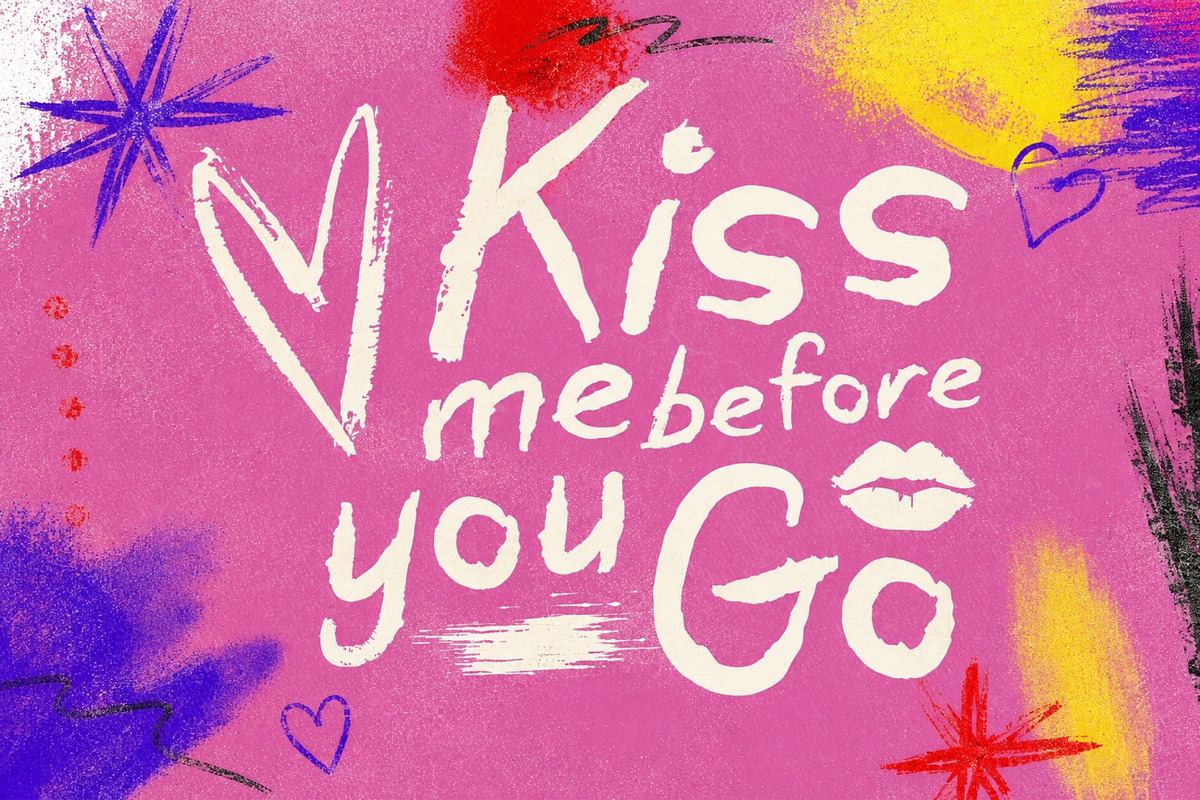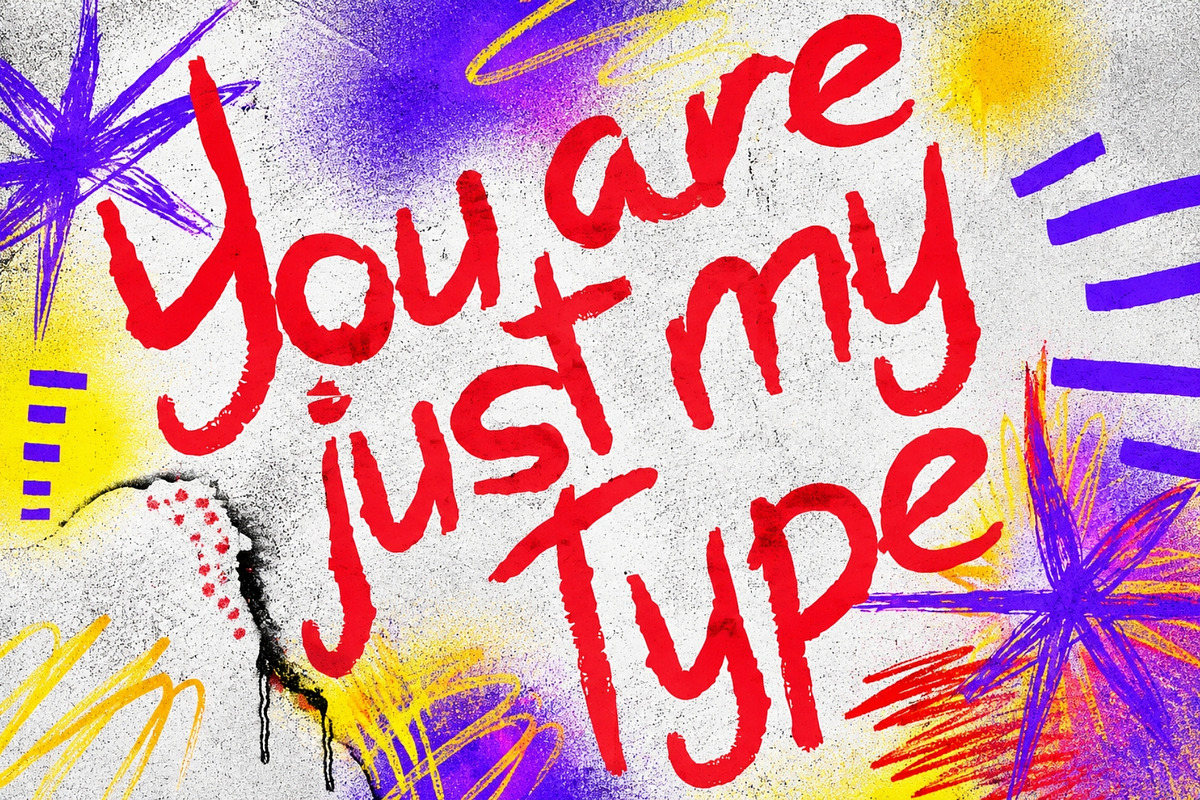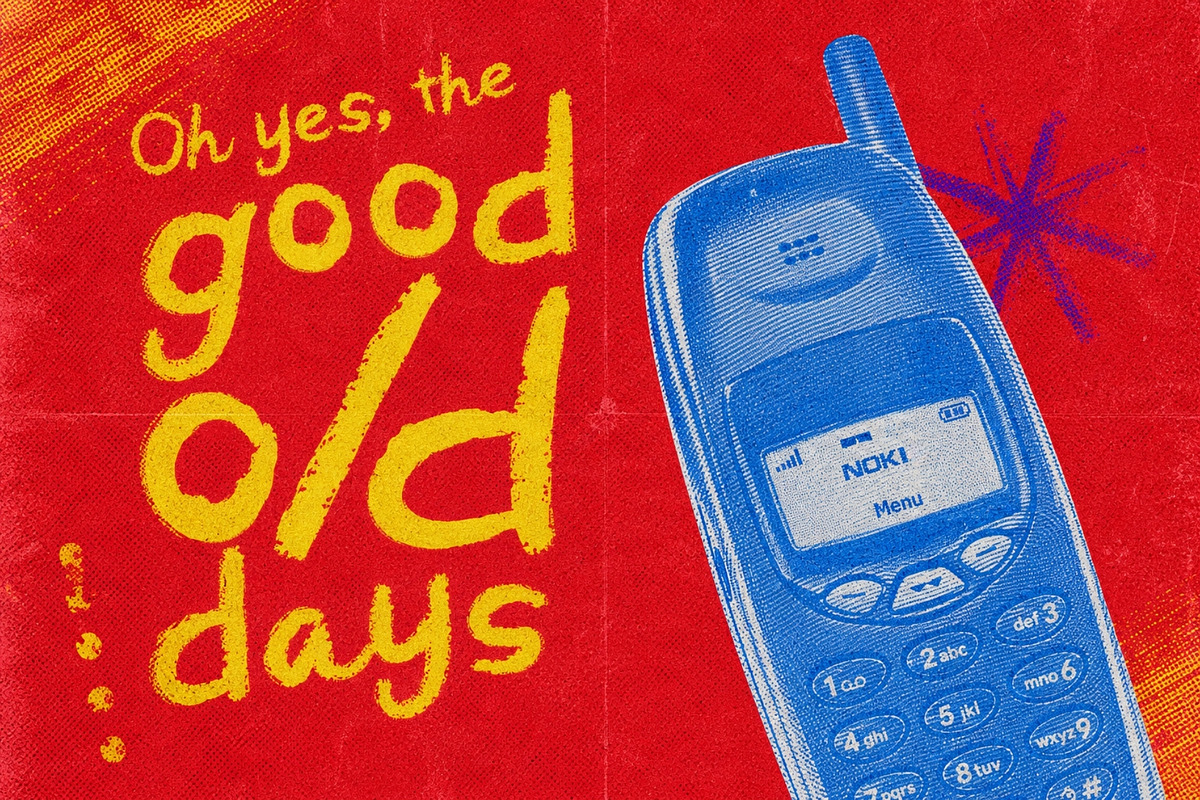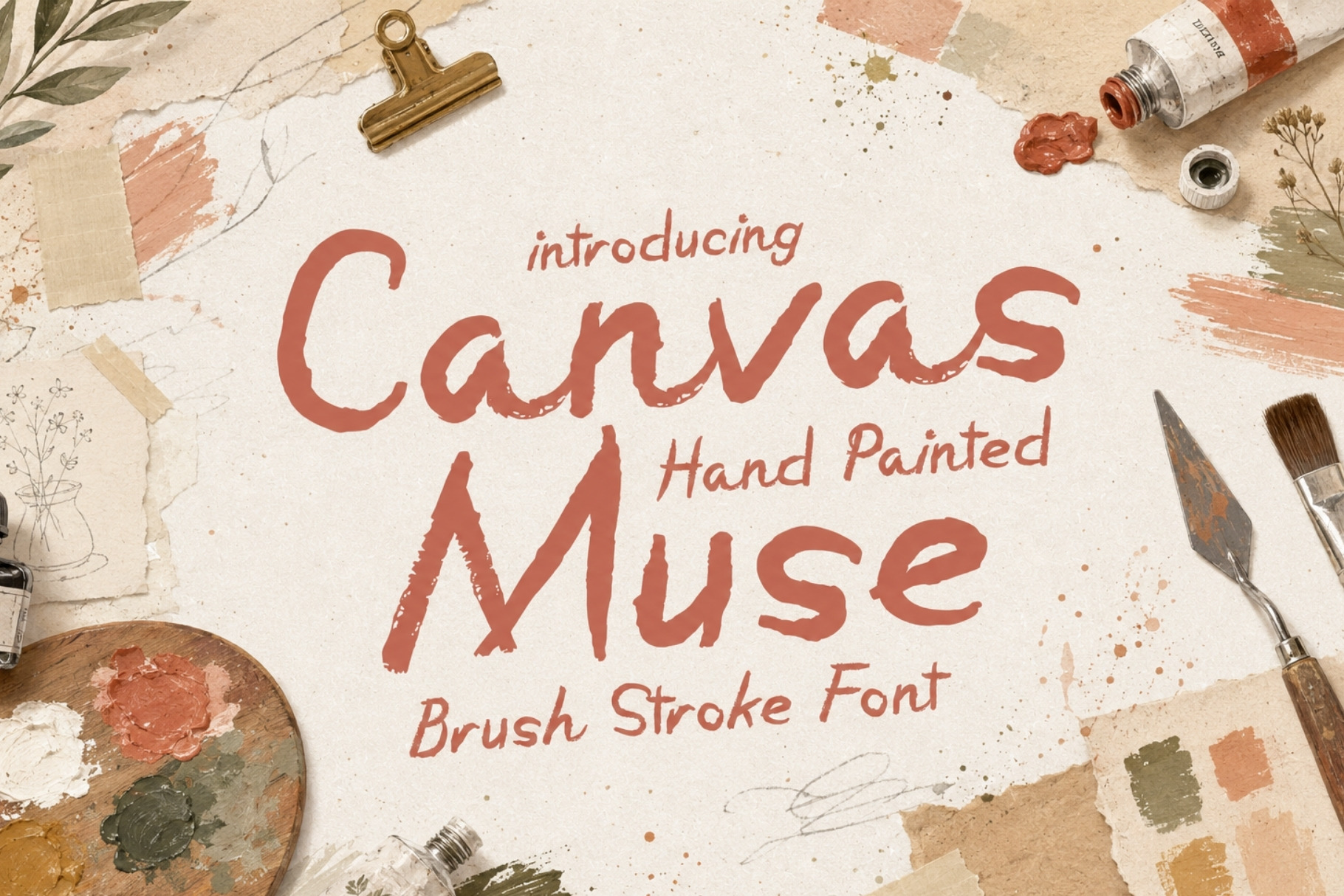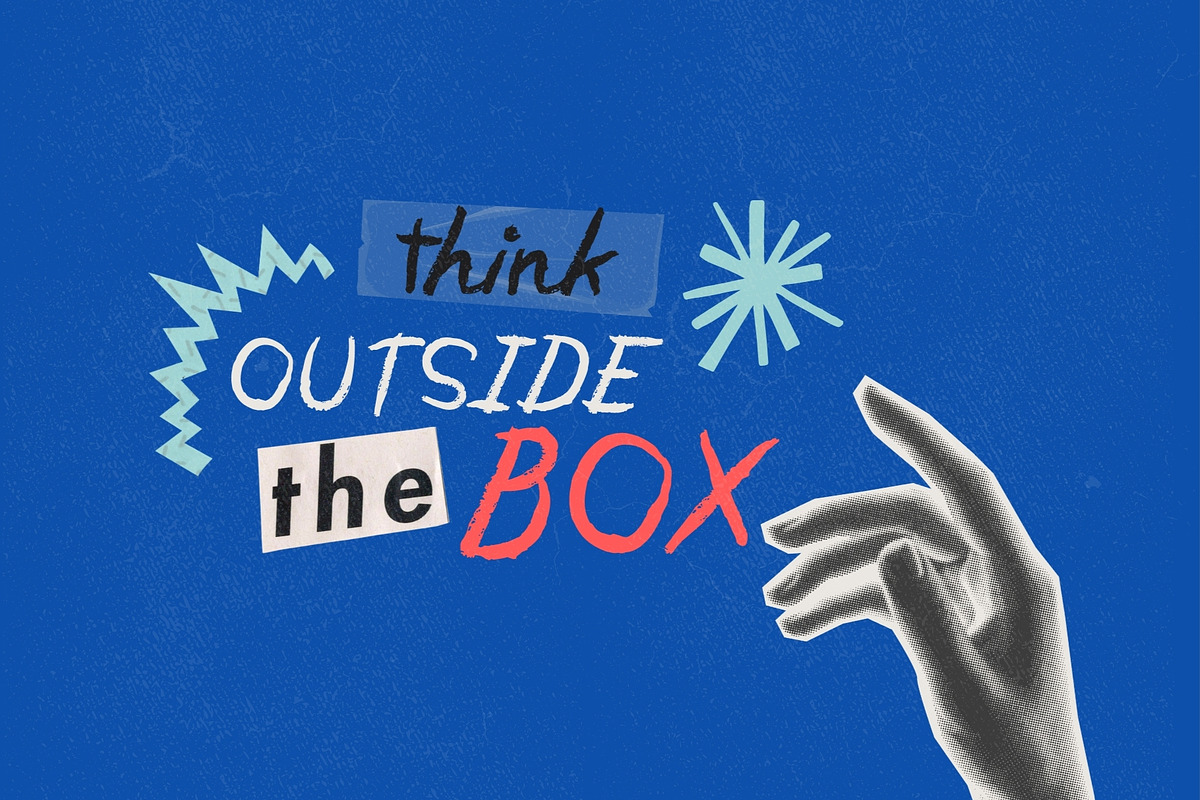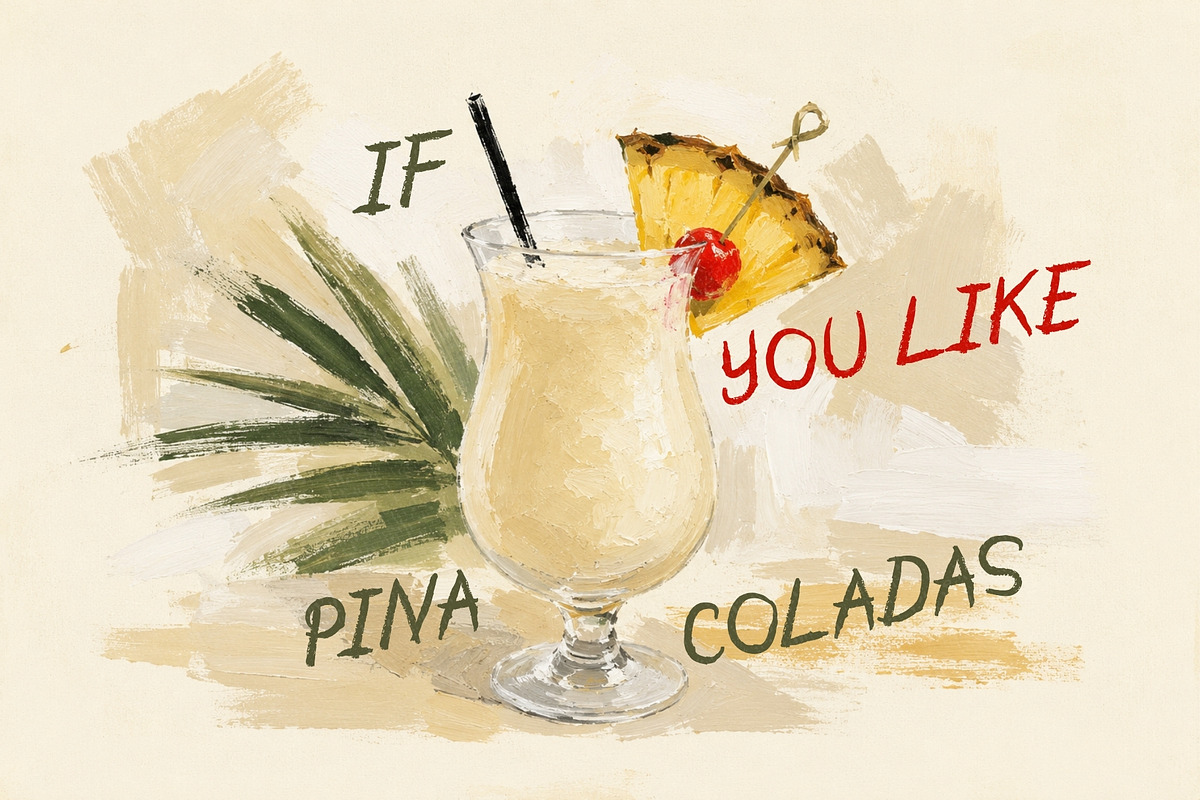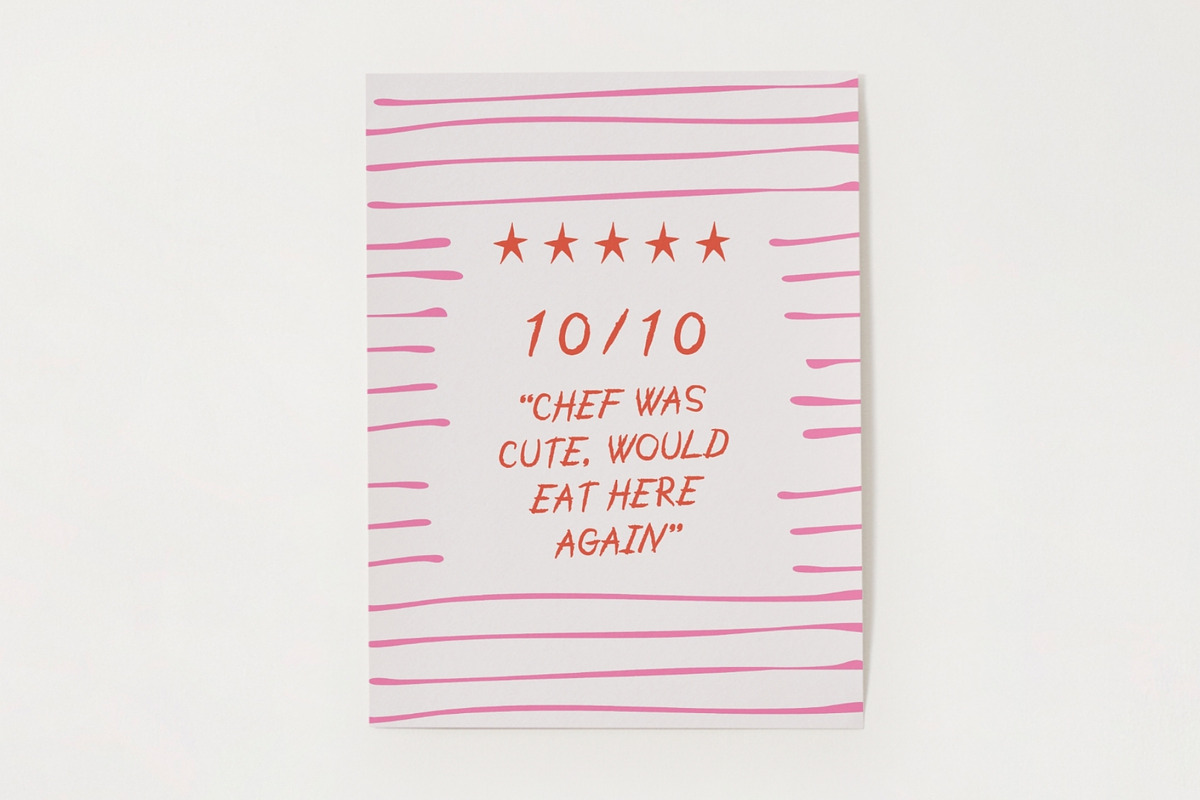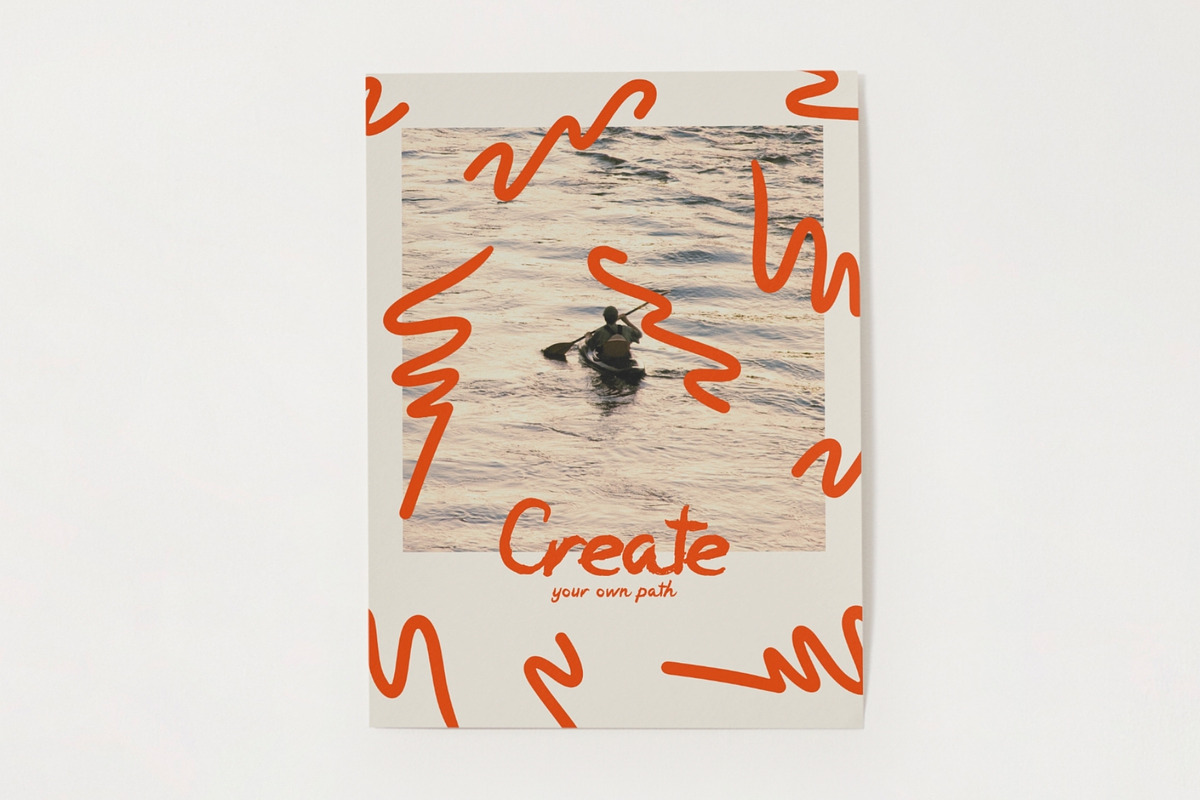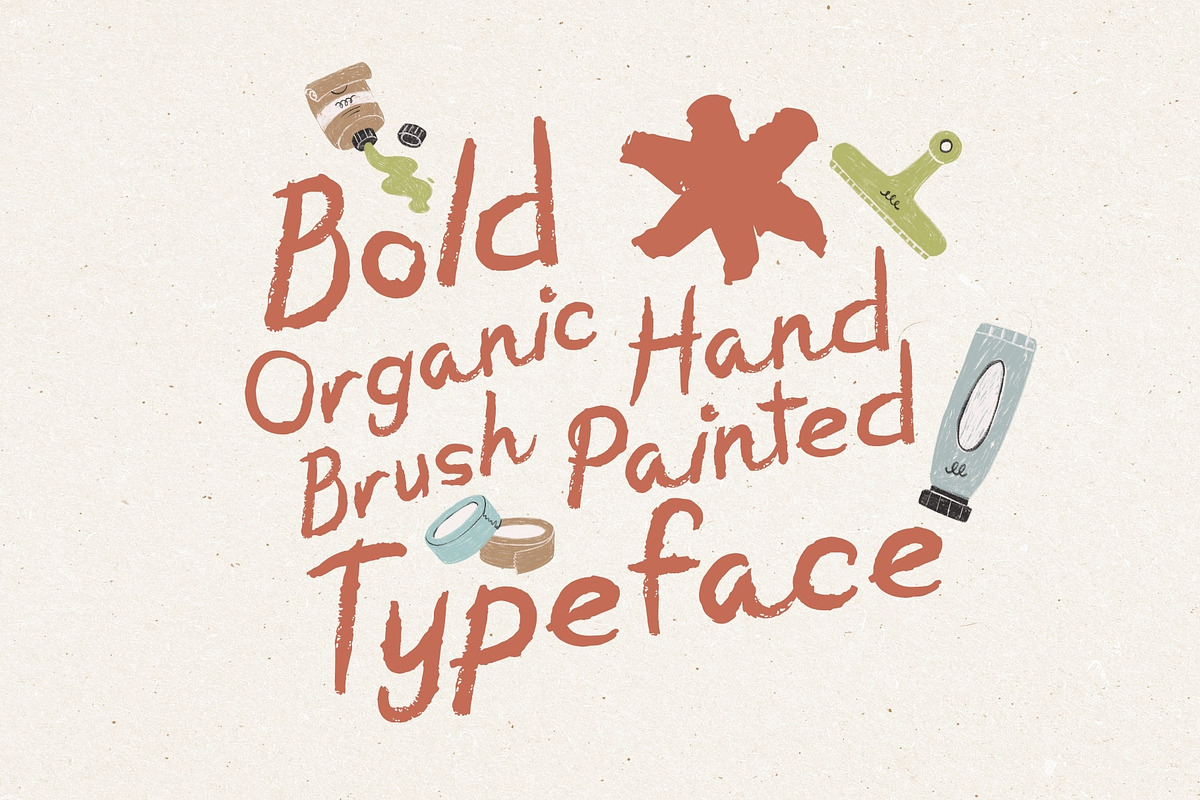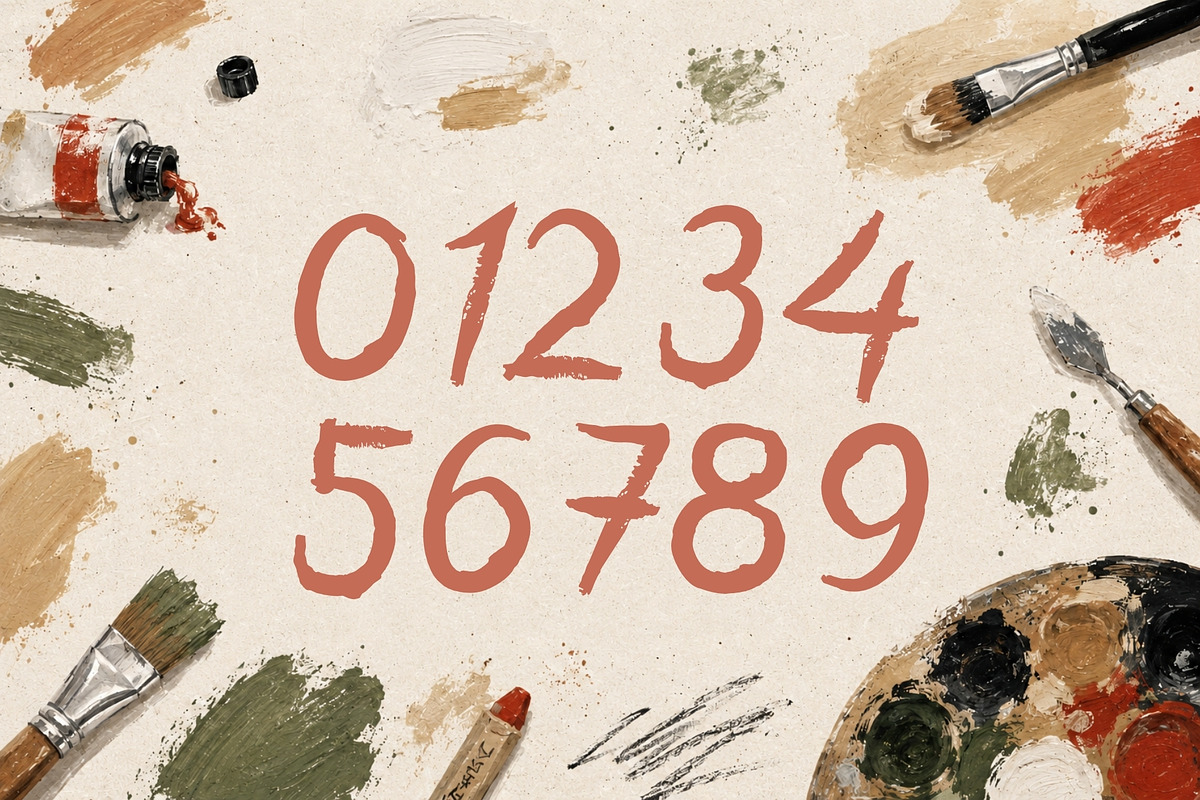
Canvas Muse - Organic Brush Typeface
Inspired by expressive brush strokes, painted signage, artist studios, and handmade lettering, every character in Canvas Muse has been individually painted by hand. The result is a bold, organic typeface filled with natural movement, imperfect edges, subtle texture, and the unmistakable personality of real paint on a surface.
Rather than chasing perfectly polished geometry, Canvas Muse celebrates the marks that make handmade work beautiful. Uneven brush pressure, spontaneous curves, and energetic strokes give each letter its own character, helping your designs feel more human, artistic, and memorable.
Its confident display style makes Canvas Muse especially powerful at larger sizes, where the hand-painted details and expressive shapes can truly shine. Use it to create striking logos, editorial headlines, art posters, product packaging, album artwork, apparel, restaurant branding, creative campaigns, social media graphics, book covers, labels, and much more.
Whether you're building an independent fashion label, designing packaging for an artisan product, creating an exhibition poster, or simply looking for typography that refuses to feel generic, Canvas Muse brings the energy of the artist's brush directly into your work.
Bold. Imperfect. Expressive. Handmade.